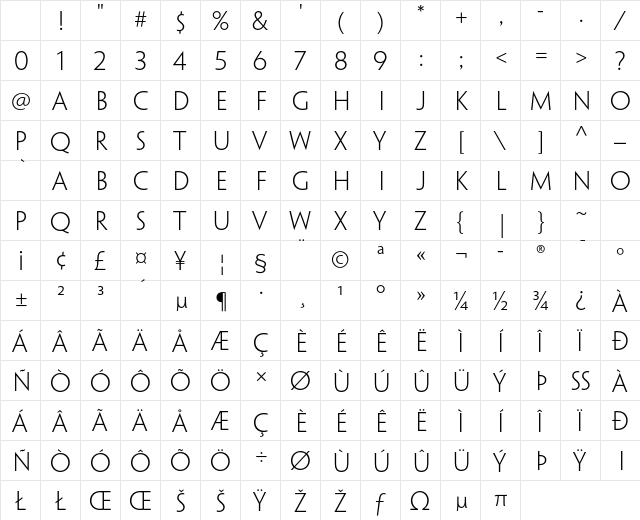
Complete Penumbra Sans Std Light glyph index. Displaying only characters natively supported by Penumbra Sans Std Light font.
Penumbra Sans Std is a composed and adaptable typeface that performs quietly and consistently across a wide range of design contexts. Its slender proportions lend an understated elegance to any composition.